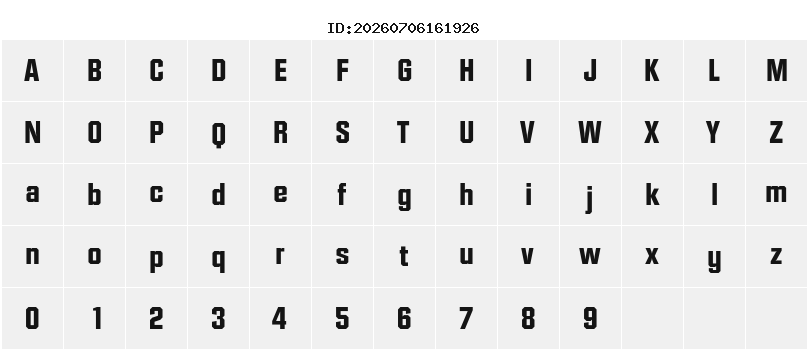
DiamanteEF Preview
• Font Name: DiamanteEF
• Full Font Name: DiamanteEF-Bold
About DiamanteEF.otf
DiamanteEF.otf is a modern, elegant sans-serif font designed for ultimate readability and visual harmony. Perfect for branding, headlines, web design, and print materials.